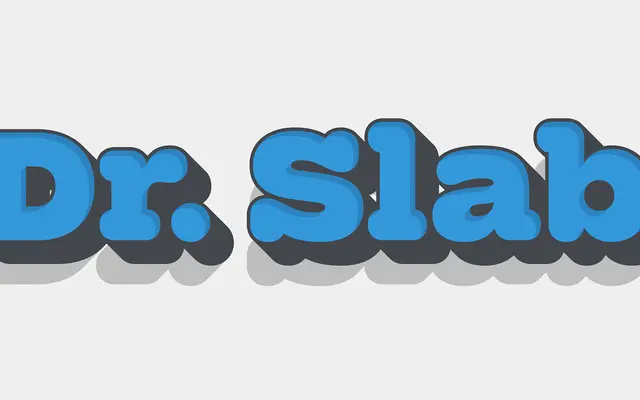
A bold, rounded slab serif built around a layered printing-plate system for creating 3D display type.
Styled after the multi-pass colour printing traditions of wood type and engraved print, Dr Slab separates its design into discrete styles (Base, Rim, Shadow and Ext) that stack in layers within Photoshop, Illustrator or similar apps. Each layer takes its own colour, replicating the effect of overlapping printing plates. The Base style also stands alone as a clean, rounded slab for friendly branding or casual poster work.
A display slab serif designed specifically for layered 3D effects, with separate styles (Base, Rim, Shadow, Ext) functioning as printing plates. Rounded slab serifs and bold proportions place it firmly in display territory.